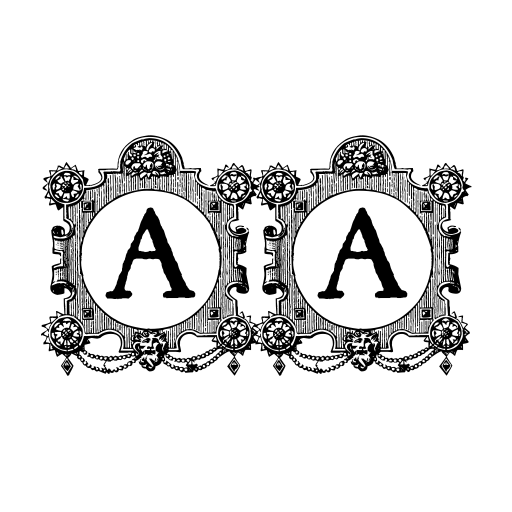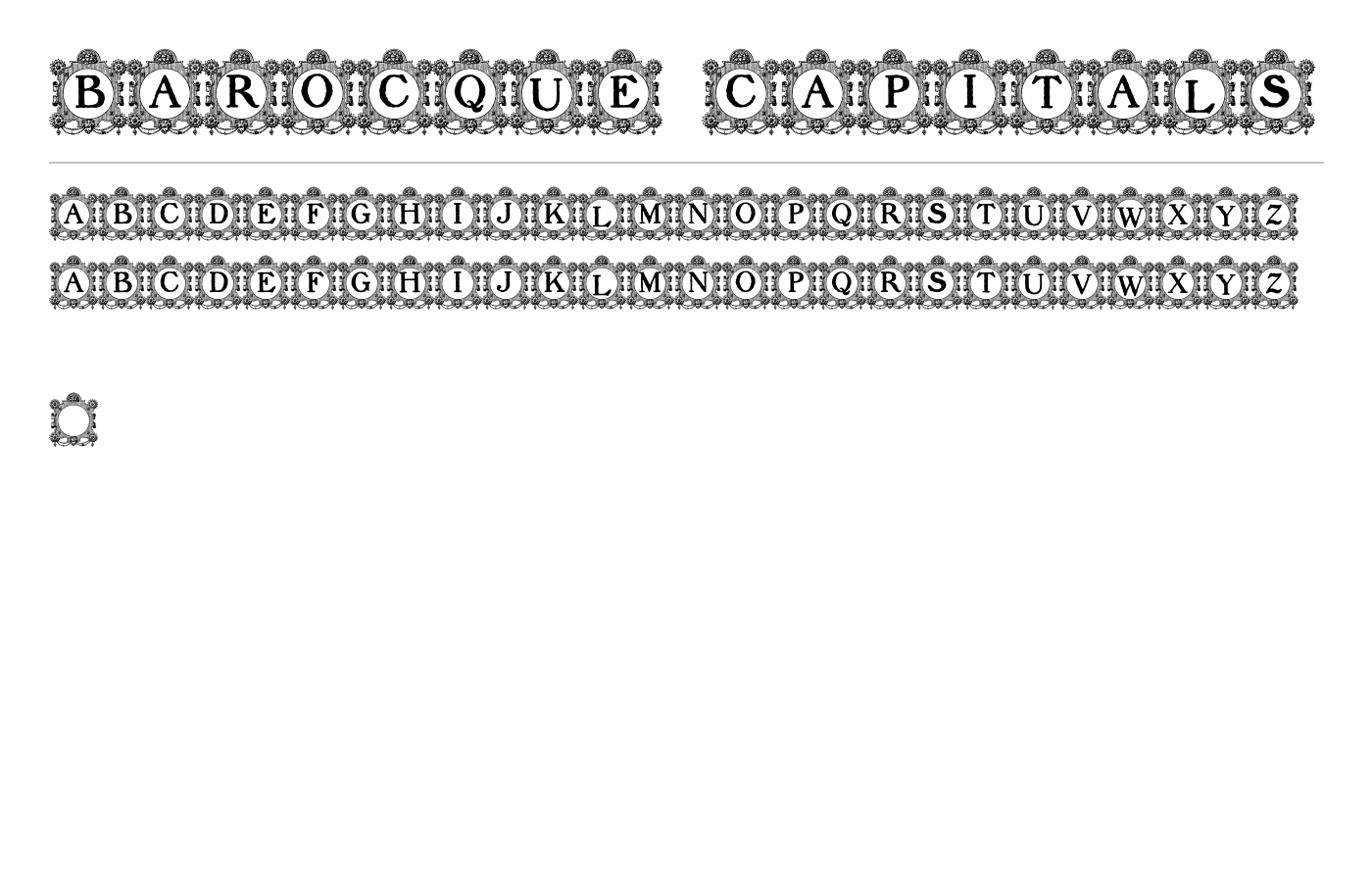
Barocque Capitals is a highly decorative serif font featuring ornate, intricate borders around each uppercase letter, evoking a vintage, baroque style. Its bold, condensed characters with strong contrasts and elaborate flourishes make it ideal for elegant branding, luxury packaging, or striking headlines where a dramatic, classic feel is desired. This font is perfect for adding a sense of historical sophistication and artistic flair to design projects.
Barocque Capitals Font
About Barocque Capitals Font